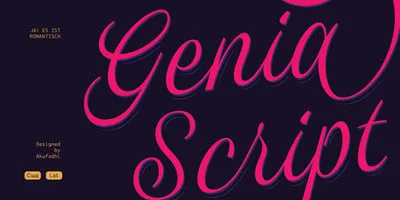
Genia Font
Genia Font is perfect for innovative technology branding, creative genius campaigns, intellectual property marketing, breakthrough innovation promotions, artistic inspiration materials, brilliant idea showcases, creative problem-solving communications, genius-level consulting services, revolutionary product launches, and visionary leadership presentations.
What makes Genia Font exciting is its brilliant sophistication that perfectly captures the intellectual excellence and creative genius found in breakthrough innovations and visionary thinking. This typeface features inspired letterforms with genius-level proportions and innovation-driven details that evoke the spark of brilliant ideas and the transformative power of exceptional intellectual achievement. The font's brilliant personality and genius authenticity make it ideal for innovation brands seeking to convey intelligence, creativity, and the exceptional thinking that comes from genuine intellectual brilliance and creative breakthrough moments.
Genia Font family includes brilliant weight variations and genius-inspired alternatives that enhance its intellectual appeal while providing design flexibility for innovation and creative applications. The font features inspired ligatures, genius-themed ornaments, and brilliant character variations that create authentic intellectual atmosphere for innovation and creative genius branding.
Innovation companies and creative think tanks consistently choose Genia Font for projects requiring authentic genius appeal and intellectual credibility. The font's brilliant character excels in applications targeting innovators, creative professionals, and visionary thinkers who appreciate genuine intellectual excellence and creative genius. Whether you're designing for innovation labs, creative agencies, or visionary technology companies, this brilliant typeface delivers the genius authenticity and intellectual excellence that resonates with audiences seeking genuine breakthrough thinking and the creative brilliance that defines exceptional innovation and visionary leadership in transformative problem-solving endeavors.